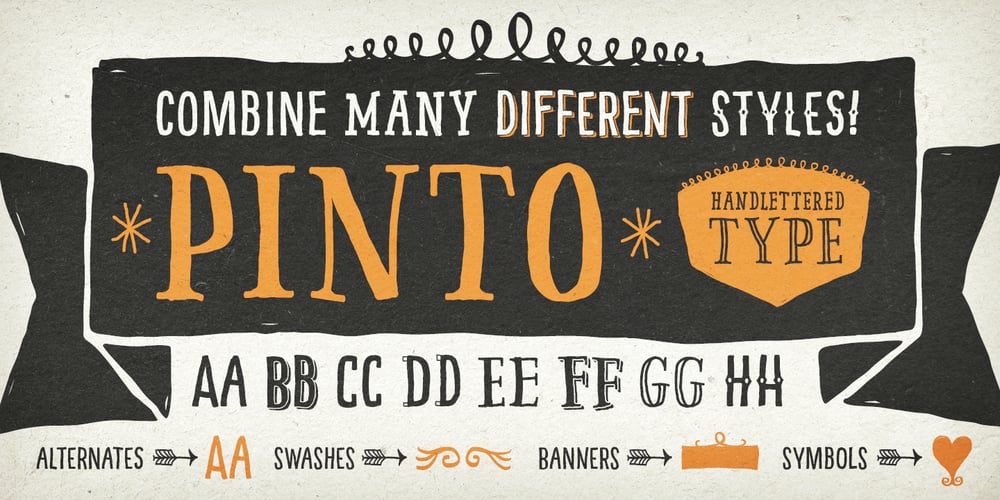
Pinto Font Family was designed by Georg Herold-Wildfellner and published by FaceType. Pinto contains 14 styles and family package options. Pinto, designed by Vienna based typographer Georg Herold-Wildfellner, lets you transform type into an exciting and beautiful piece of work. The irregular, hand-lettered look adds a real human touch to things and comes along with a lot of loving details. Combine all font-styles the way you want, add some ornamental swashes or banners and even a single word becomes magnificent. · Four subfamilies plus hundreds of ornaments in 1 font combo! Pinto shows a great flexibility and variety. It works similar to a toolbox: four subfamilies including shadow-, outline-, display- and layer-variations. On top of that is NO_05, a set of more than 800 different ornaments to dress up any typographic project. Browse through tons of swashes, flourishes, dividers, corners, ribbons, banners, frames, arrows, hearts and stars. The extensive character set includes uppercase letters in two automatically alternating versions (activate OpenType “Contextual Alternates”). All ornaments are abundant with details and often available in different stroke thicknesses. Scale them up to meet your personal needs! · The Pinto Family at a glance • NO_1: Narrow Sans Serif (additional option: NO_01 Shadow) • NO_2: Slab Serif (plus a playful variant with serifs drawn as outline) • NO_3: Serif (plus 3 versions: Shadow, Engraved & Engraved Display) • NO_4: Western style – this one is for free! (extra: two layer-option) • NO_5: 800+ typographic ornaments in 3 fonts, separated into stylistic sets · The Pinto family in total includes 14 hand-drawn styles and is tailored for food-, magazine-, book- and packaging-design. · Enjoy! Georg Herold-Wildfellner | FaceType · View other fonts from Georg Herold-Wildfellner: Sofa Serif | Sofa Sans | Mila Script Pro | Pinto | Supernett | Mr Moustache | Aeronaut | Ivory | Weingut · Language Report for Pinto / 195 languages supported: Abenaki, Afaan Oromo, Afar, Afrikaans, Albanian, Alsatian, Amis, Anuta, Aragonese, Aranese, Aromanian, Arrernte, Arvanitic, Asturian, Aymara, Bashkir, Basque, Bikol, Bislama, Bosnian, Breton, Cape Verdean, Catalan, Cebuano, Chamorro, Chavacano, Chickasaw, Cimbrian, Cofan, Corsican, Creek, Crimean Tatar, Croatian, Czech, Danish, Dawan, Delaware, Dholuo, Drehu, Dutch, English, Estonian, Faroese, Fijian, Filipino, Finnish, Folkspraak, French, Frisian, Friulian, Gagauz, Galician, Genoese, German, Gooniyandi, Greenlandic, Guadeloupean, Gwichin, Haitian Creole, Han, Hawaiian, Hiligaynon, Hopi, Hotcak, Hungarian, Icelandic, Ido, Ilocano, Indonesian, Interglossa, Interlingua, Irish, Istroromanian, Italian, Jamaican, Javanese, Jerriais, Kala Lagaw Ya, Kapampangan, Kaqchikel, Karakalpak, Karelian, Kashubian, Kikongo, Kinyarwanda, Kiribati, Kirundi, Klingon, Ladin, Latin, Latino Sine, Latvian, Lithuanian, Lojban, Lombard, Low Saxon, Luxembourgish, Makhuwa, Malay, Maltese, Manx, Maori, Marquesan, Meglenoromanian, Meriam Mir, Mohawk, Moldovan, Montagnais, Montenegrin, Murrinhpatha, Nagamese Creole, Ndebele, Neapolitan, Ngiyambaa, Niuean, Noongar, Norwegian, Novial, Occidental, Occitan, Oshiwambo, Ossetian, Palauan, Papiamento, Piedmontese, Polish, Portuguese, Potawatomi, Qeqchi, Quechua, Rarotongan, Romanian, Romansh, Rotokas, Sami Lule, Sami Southern, Samoan, Sango, Saramaccan, Sardinian, Scottish Gaelic, Serbian, Seri, Seychellois, Shawnee, Shona, Sicilian, Silesian, Slovak, Slovenian, Slovio, Somali, Sorbian Lower, Sorbian Upper, Sotho Northern, Sotho Southern, Spanish, Sranan, Sundanese, Swahili, Swazi, Swedish, Tagalog, Tahitian, Tetum, Tok Pisin, Tokelauan, Tongan, Tshiluba, Tsonga, Tswana, Tumbuka, Turkish, Turkmen, Tuvaluan, Tzotzil, Uzbek, Venetian, Vepsian, Volapuk, Voro, Wallisian, Walloon, Waraywaray, Warlpiri, Wayuu, Welsh, Wikmungkan, Wiradjuri, Xhosa, Yapese, Yindjibarndi, Zapotec, Zulu, Zuni